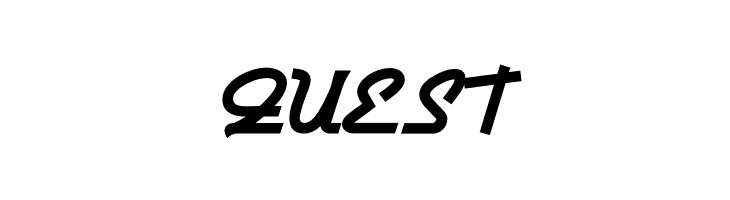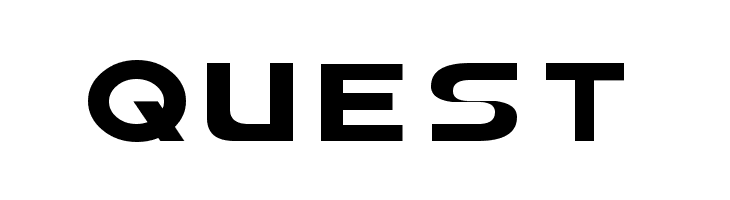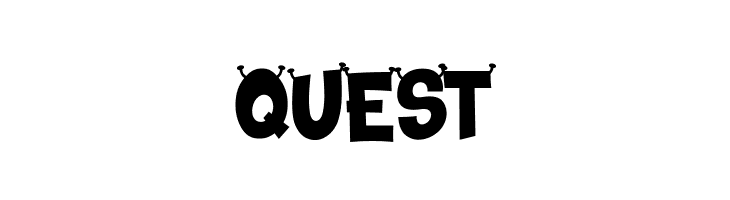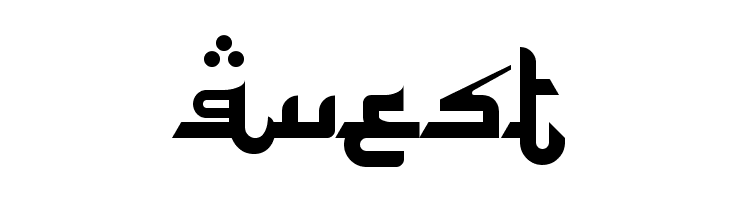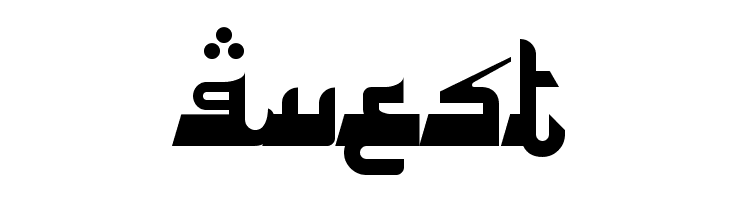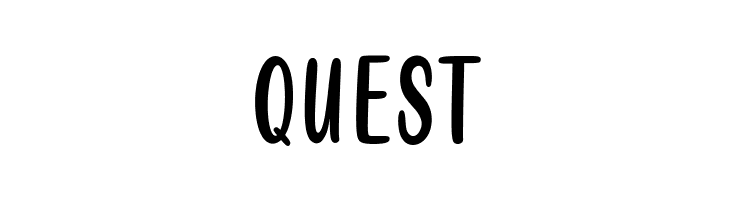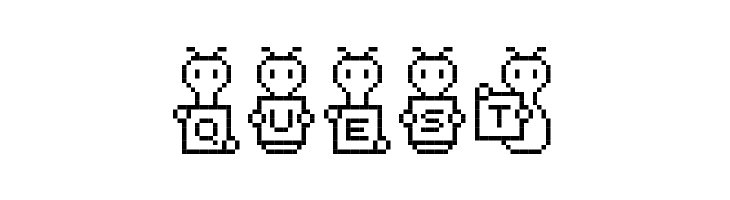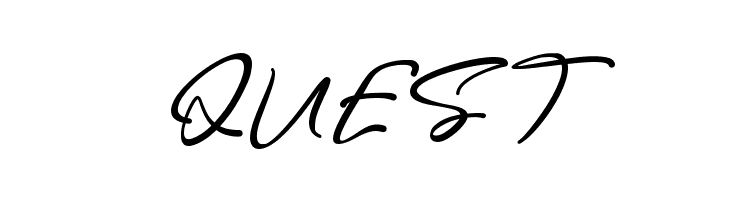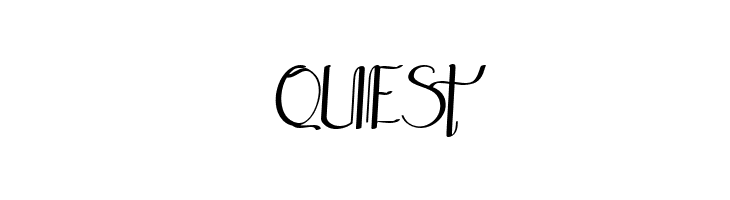
A varied set of airline logo fonts with modern, vintage, and decorative styles.
Bold, geometric font with a 3D shadow effect.
A decorative font with playful patterns and motifs, ideal for eye-catching designs.
A bold, dynamic script font with slanted, italicized characters and strong visual impact.
A bold, cursive font with a dynamic and flowing style.
An elegant, calligraphic font with artistic curves and sharp angles.
A modern, geometric font with sleek lines and rounded edges.
A modern, geometric font with clean, rounded edges and consistent stroke width.
A bold, geometric font with a futuristic and modern design.
A dynamic cursive script font with elegant, fluid strokes.
A bold, slab serif font with strong geometric shapes and a robust presence.
A bold, distressed font with a grunge texture, perfect for impactful designs.
A bold, geometric font with calligraphic influences and a modern aesthetic.
A bold, geometric font with strong strokes and sharp angles.
A bold, playful font with alien-inspired design and quirky details.
A whimsical font with heart-shaped elements, perfect for romantic designs.
A distressed, vintage-style font with a bold, weathered appearance.
A graceful script font with fluid, elegant strokes and a handwritten style.
Playful, hand-drawn cartoon illustrations themed around weather and activities.
A modern sans-serif font with clean lines and excellent readability.
A playful, rounded font with smooth curves and a friendly vibe.